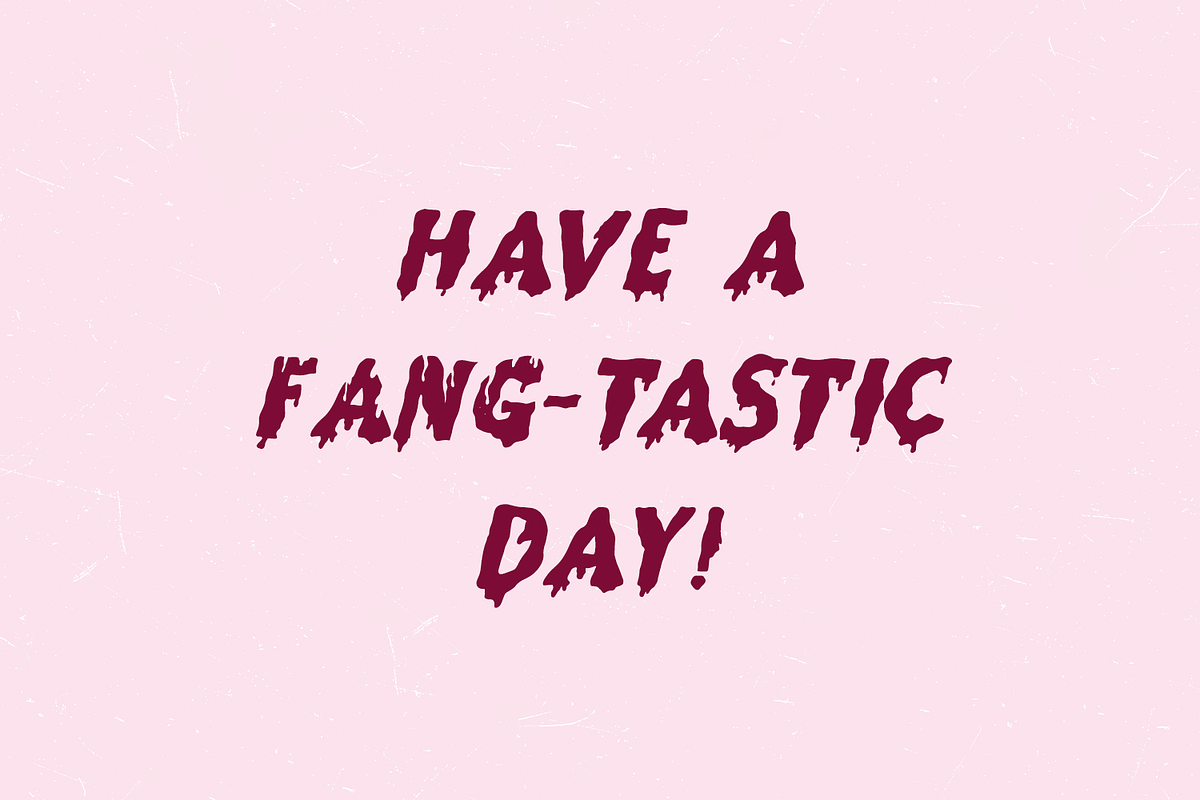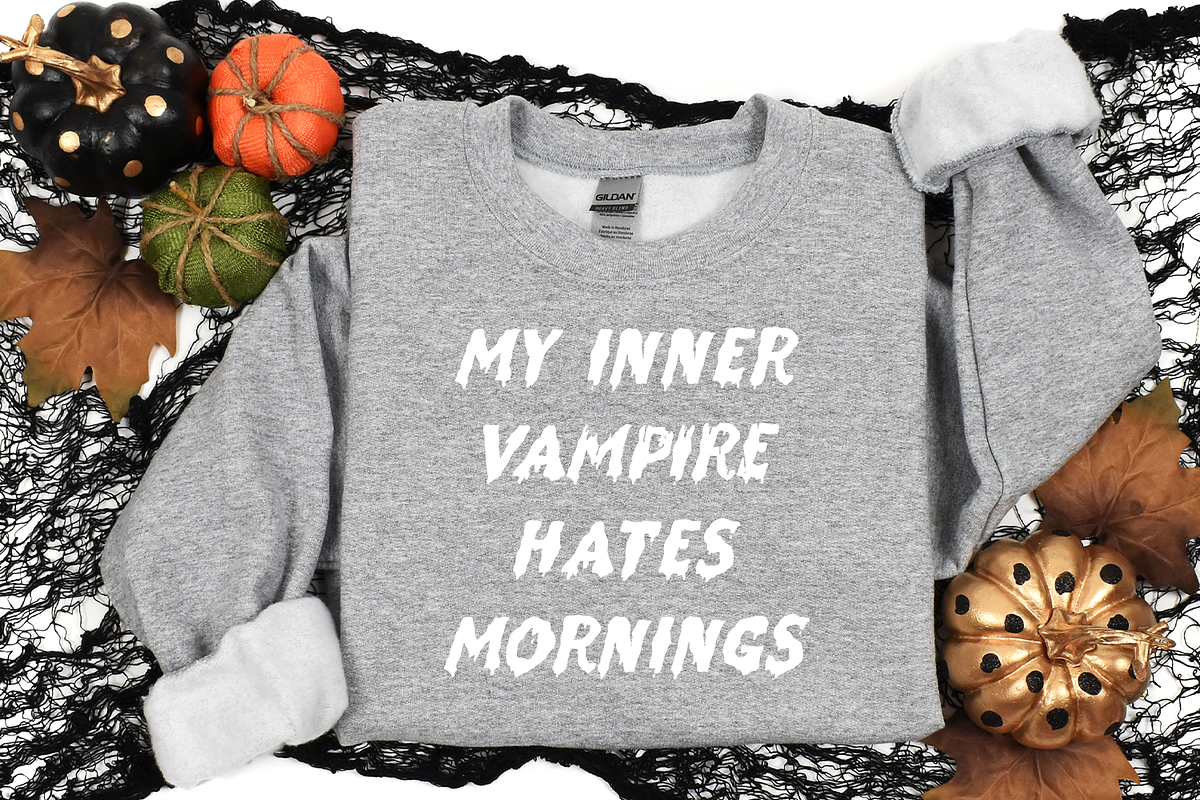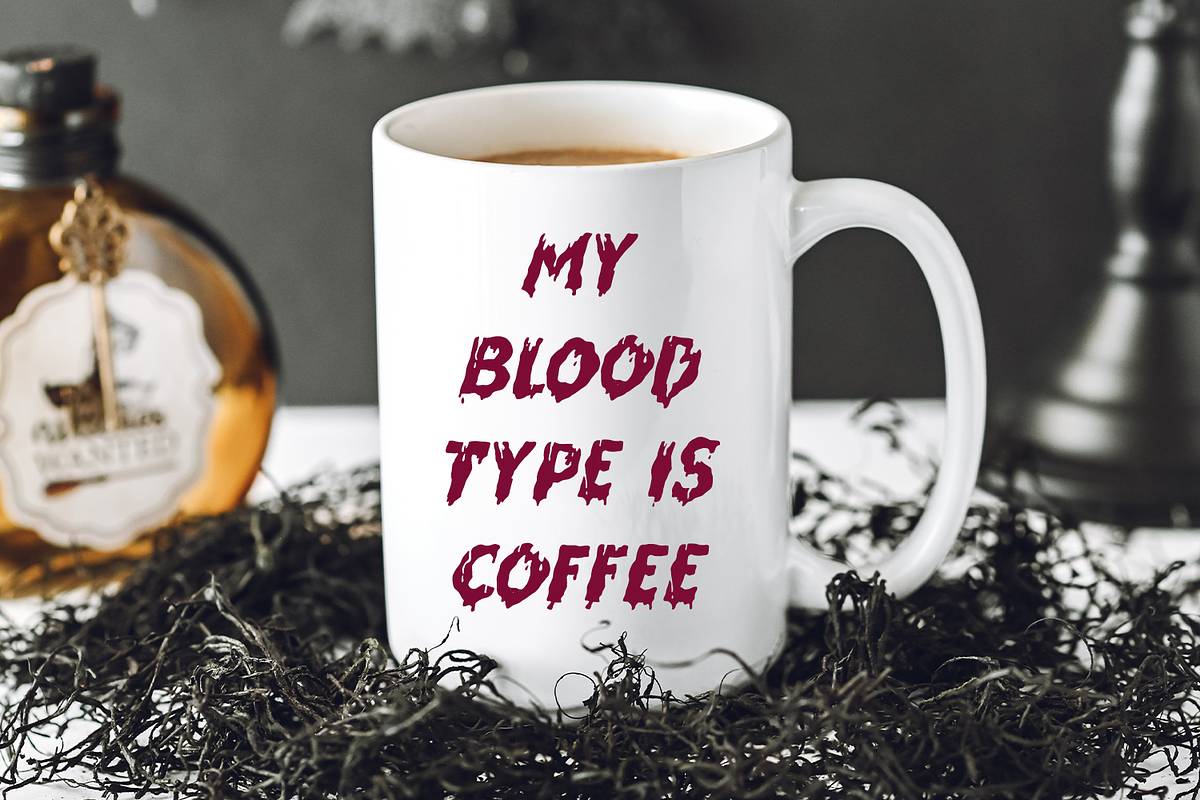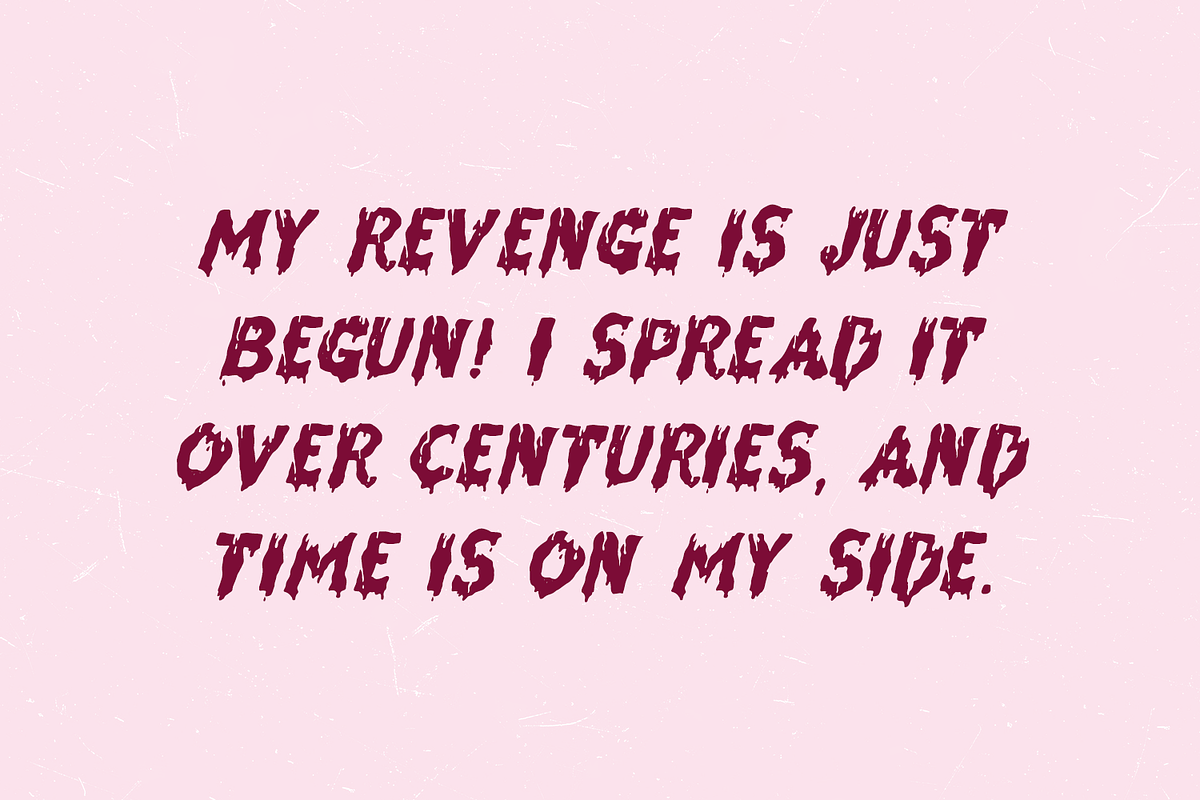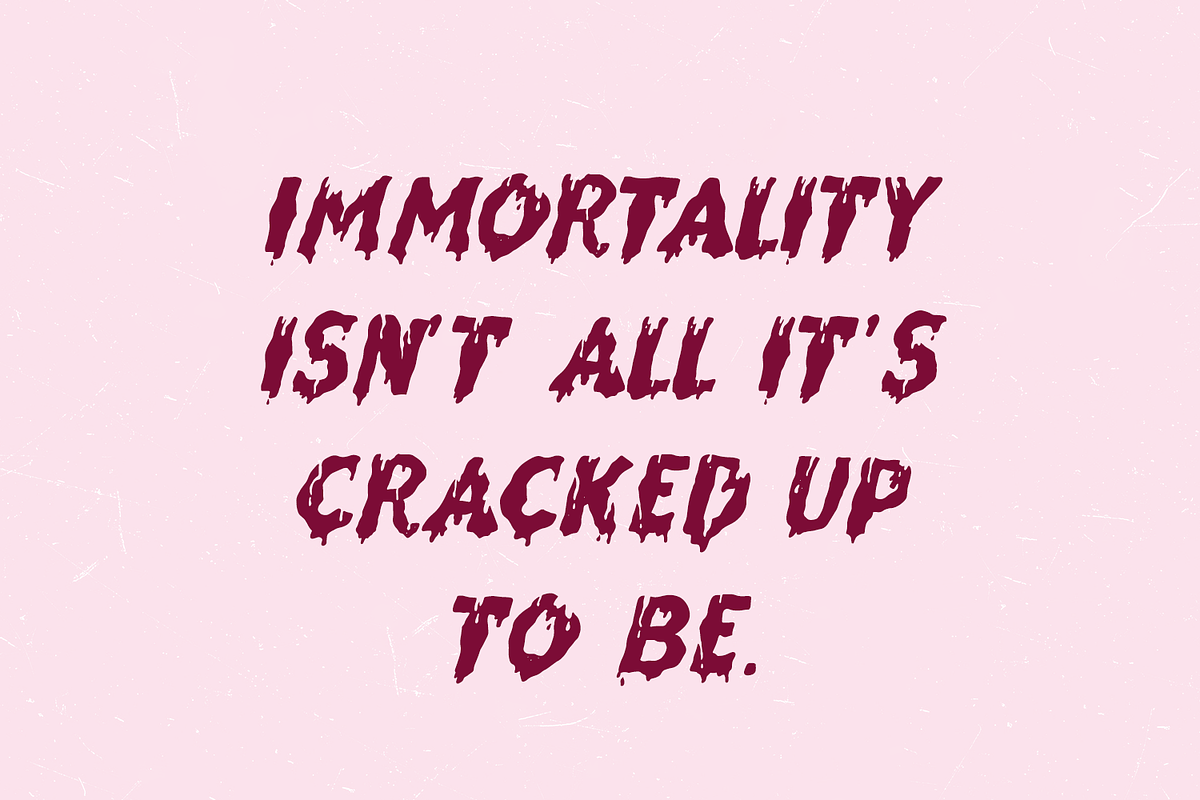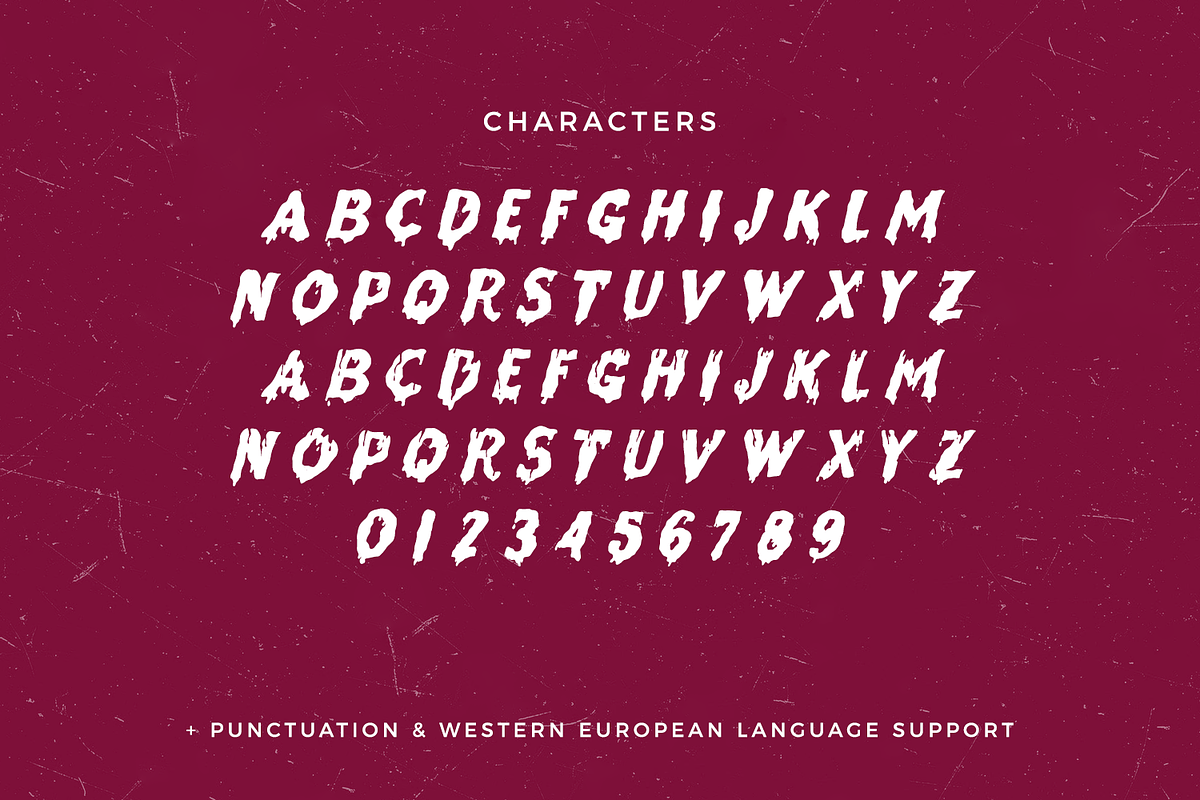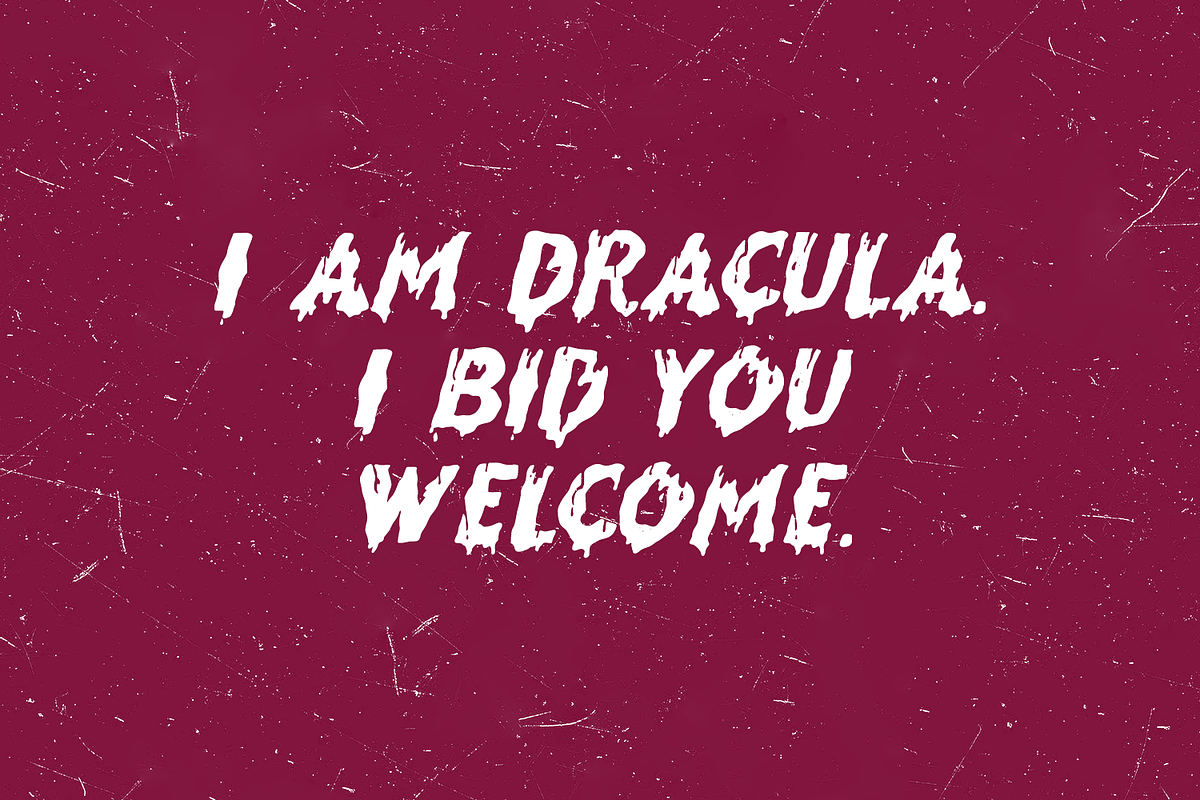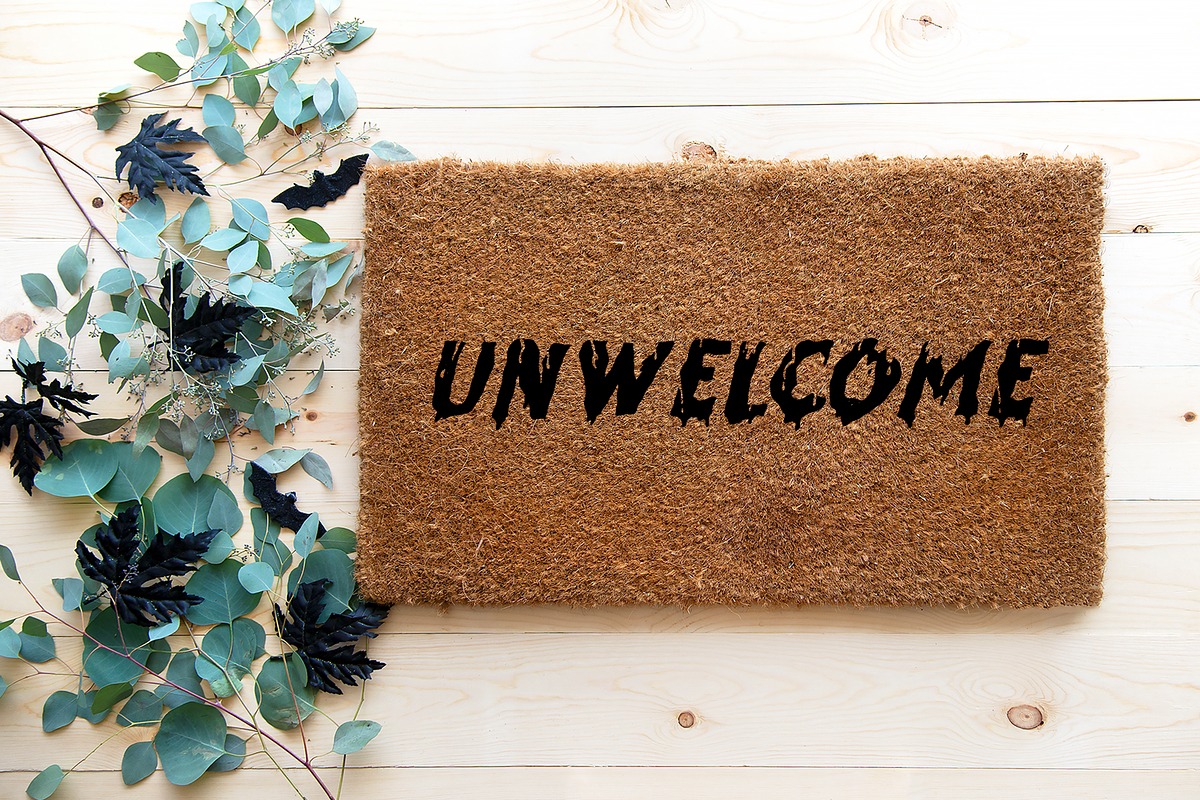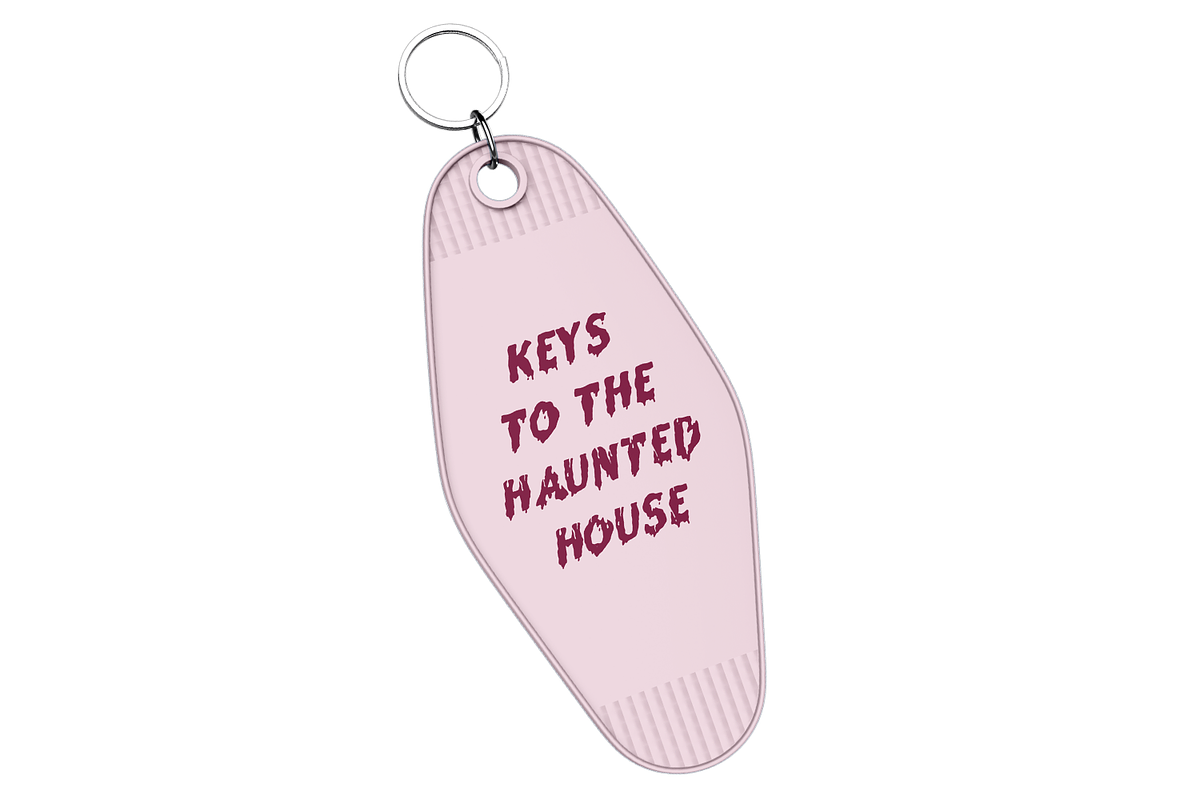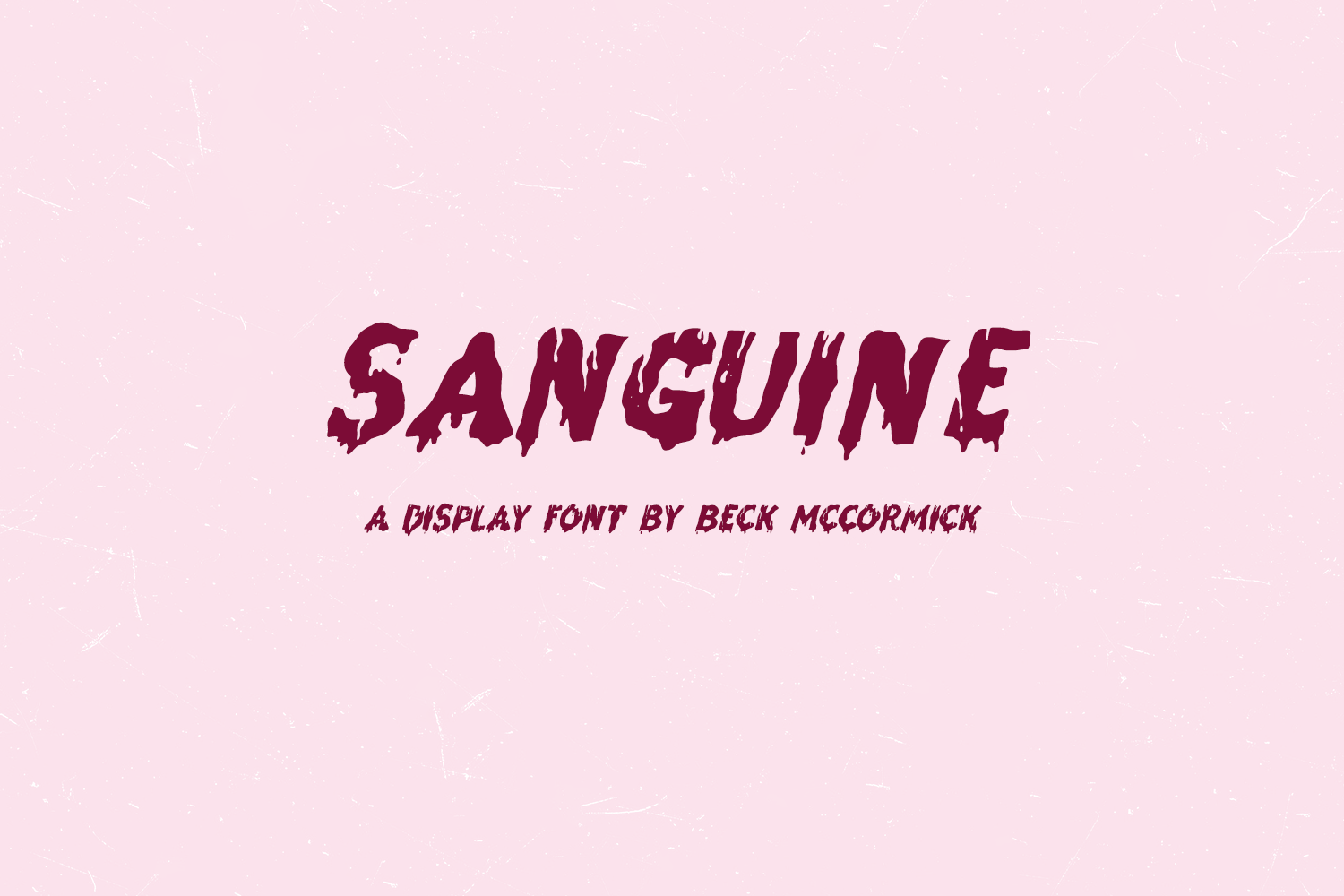
Sanguine Sans - Drip Font
Introducing Sanguine, a drippy blood font. Sanguine is a fantastic fit for your scary designs. This font is well-suited for Halloween crafting projects with your Cricut or Silhouette machine, and can be used for things like shirts, signs, labels, marketing materials, social media, SVG designs, greeting cards & other print items, and even spooky logos & branding.
Sanguine includes:
- full upper + lowercase characters (Sanguine is all-caps, but lowercase characters feature “internal bleeding” from the top of the letter creating negative space.)
- numbers + punctuation
- Western European language support - English, French, Spanish, Portuguese (Brazil), Portuguese (Portugal), Italian, German (Germany), German (Austria), Dutch, Danish, Swedish, Norwegian (Bokmål and Nynorsk), Finnish, Icelandic, Irish, Welsh